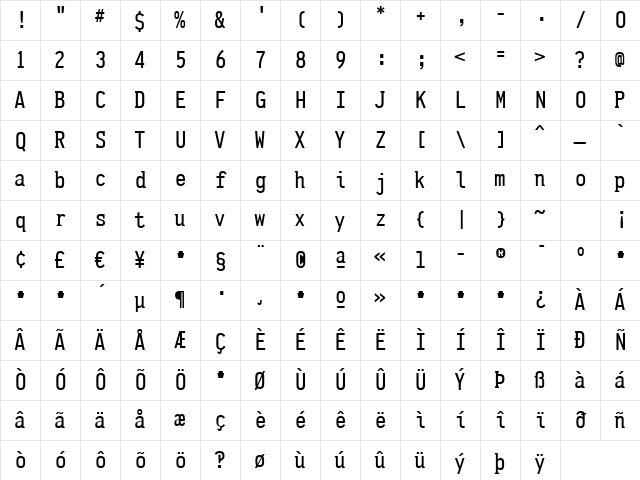
Pennsylvania Regular
Foundry: The Font Bureau, Inc
Design Context for Pennsylvania
Pennsylvania is a composed and adaptable typeface that performs quietly and consistently across a wide range of design contexts.